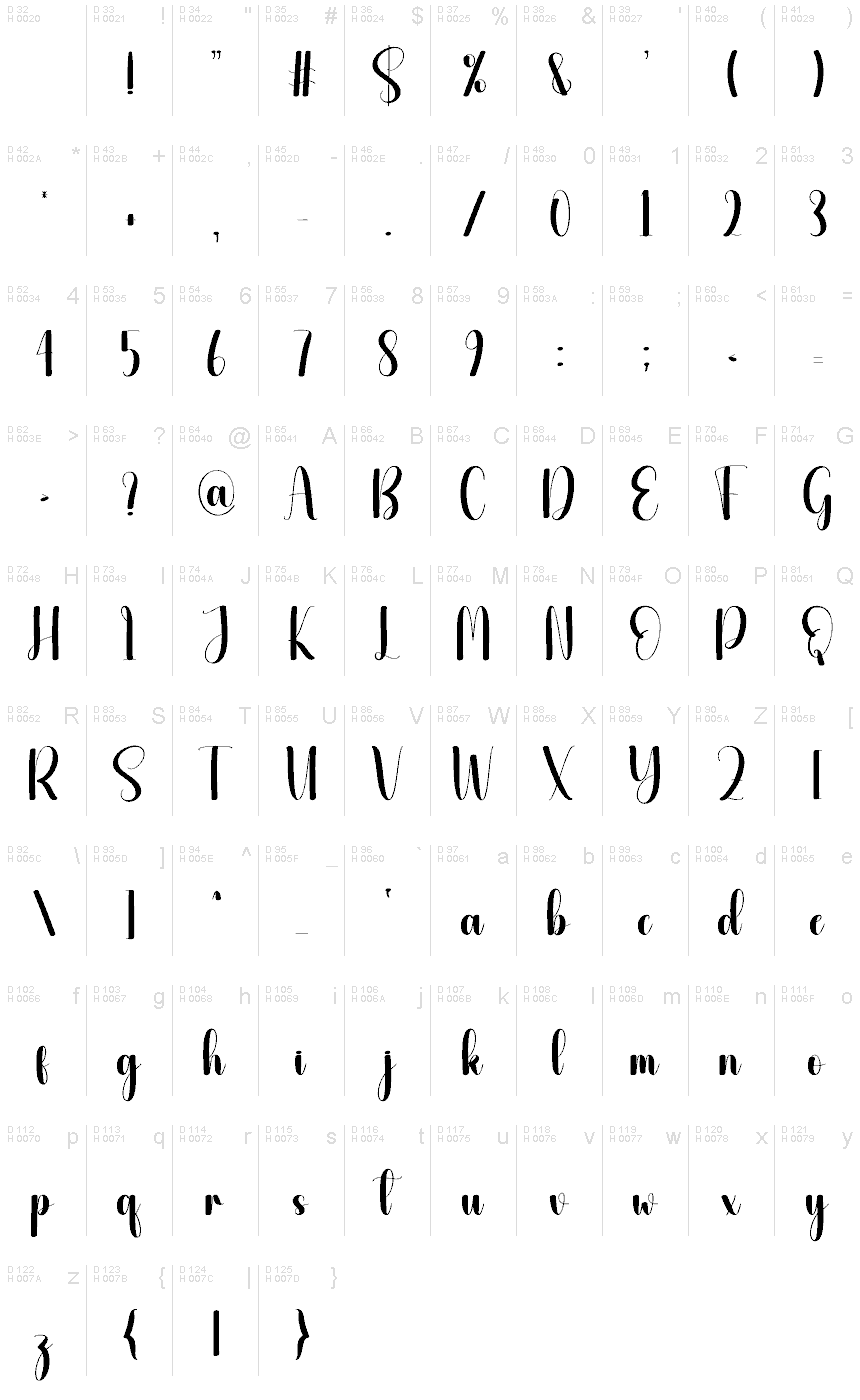
Thumbtack
Thumbtack font is an elegant calligraphy font designed by Andi Moz. The condensed letters connect through smooth flowing strokes to boast an expressive appearance with a sophisticated and romantic tone. Enjoy the modern script's smooth curves that perfectly mix interchanging weights for a stylish presence that's invitingly graceful.